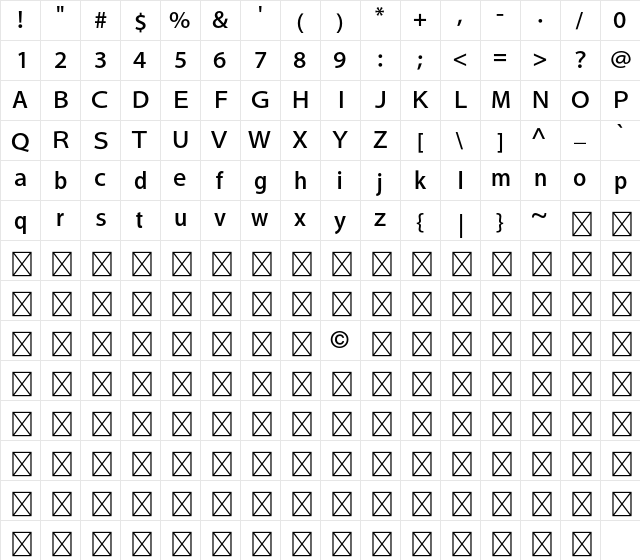
Munhwa Gothic Std B
Design Context for Munhwa Gothic Std Typeface
Munhwa Gothic Std has the quiet confidence of well-executed sans-serif typography: versatile, unobtrusive, and dependable at any size.
Font Pairing: Works well alongside a characterful serif or display font that can carry the expressive load while Munhwa Gothic Std handles the functional copy.
Pro Tip: Use Munhwa Gothic Std for UI labels, navigation, and short-form body copy where clean legibility is the priority.